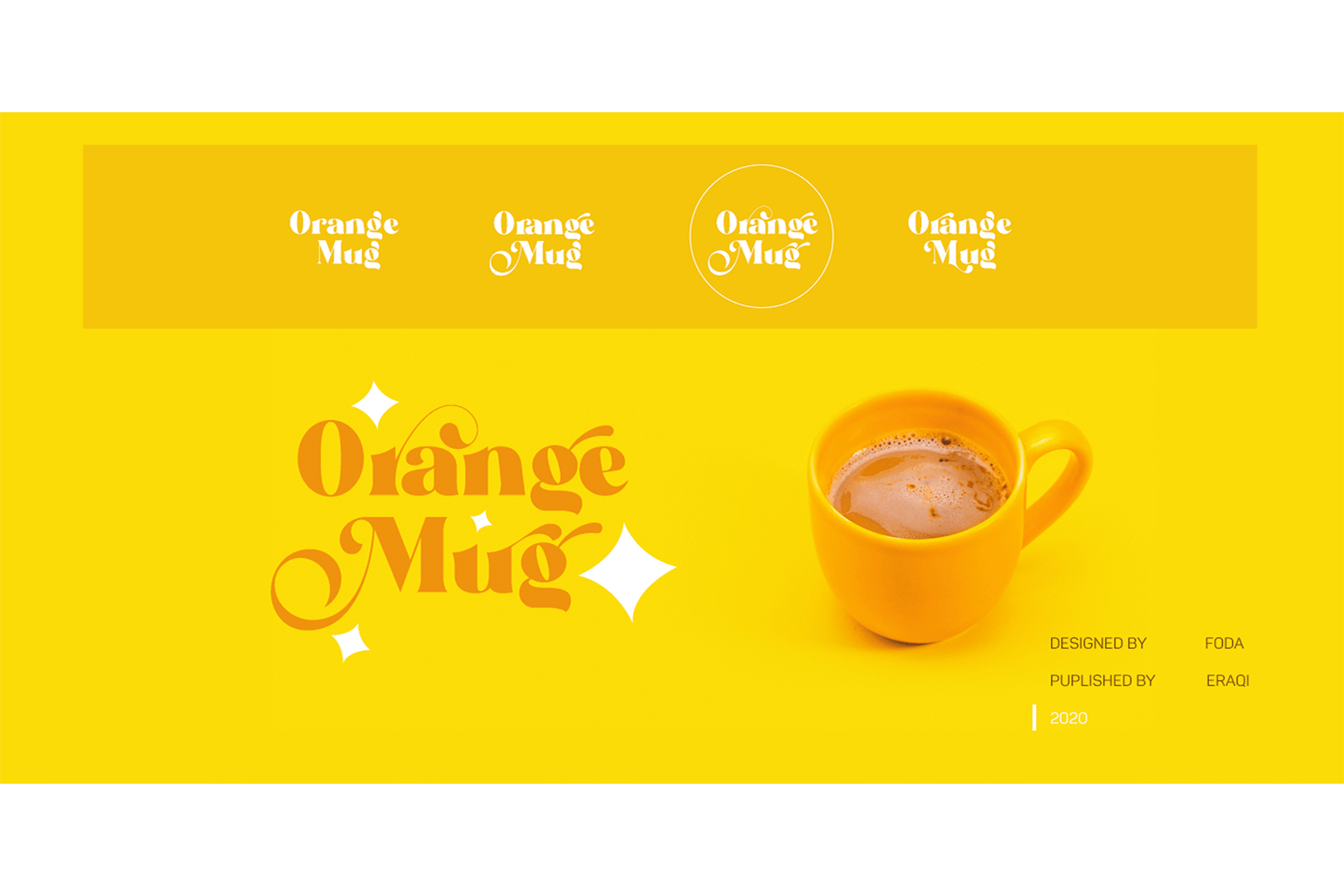
Stazin Font
Stazin is a display high-contrasted font comes with single-weight. Stazin supports many Latin based languages and Arabic language with almost 900 glyphs that covers many OpenType features.